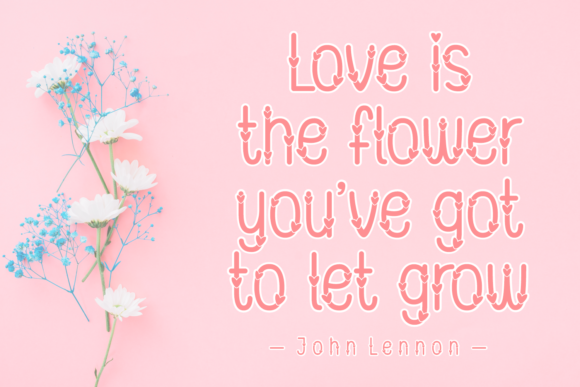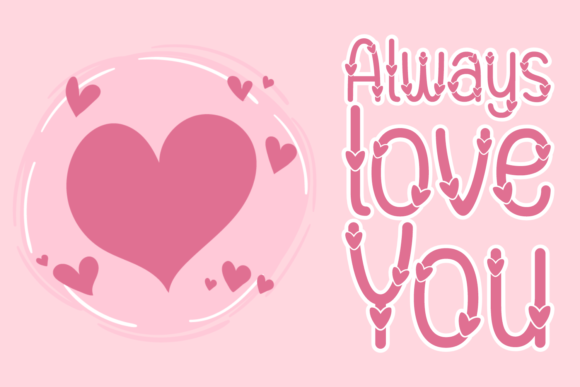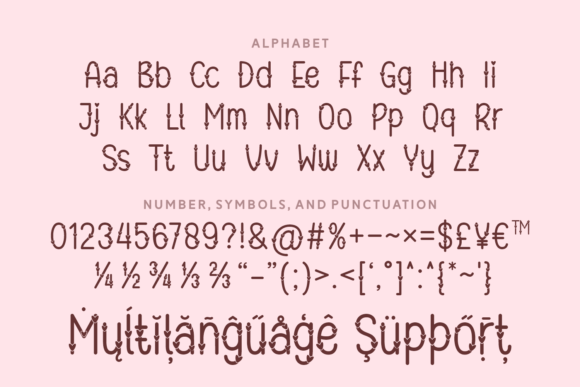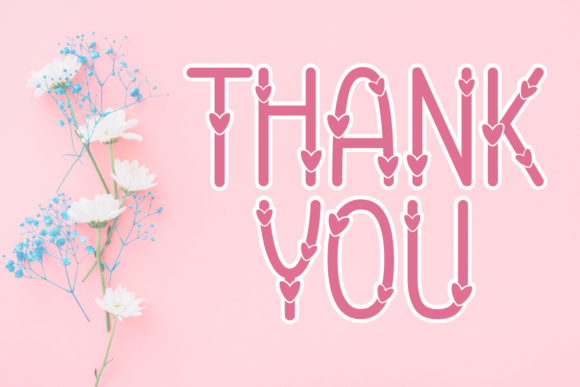
Introduction to Just Love You Font
Have you ever found yourself rummaging through your stash of fonts, searching for the perfect one to convey the emotions behind your creative project? Perhaps you’re designing a romantic card for a loved one or a sweet treat for a special occasion. Whatever the case may be, we’ve all been there – craving a font that’s not just aesthetically pleasing, but also conveys the depth of our feelings.
Enter the Just Love You Font, a high-quality design resource that’s sure to make your creative heart skip a beat. With its lovely decorative elements and hearts on its character set, this font is more than just a cute addition to your design arsenal. It’s a valuable tool for designers looking to add a touch of whimsy and romance to their projects.
Key Features of Just Love You Font
- High-quality design for creative projects, perfect for illustrations, graphics, and more.
- Unique, hand-drawn style with a transparent background, allowing for easy customization and layering.
- Includes a range of characters, including uppercase and lowercase letters, numbers, and special symbols.
- Perfect for use in digital and print media, including social media graphics, posters, and business cards.
Honest Review: Just Love You Font
I recently stumbled upon the Just Love You Font and decided to give it a try for my latest design project. Overall, I’m impressed with the results.
What works well: ✨ The font is a high-quality design resource that can be downloaded for free, which is always a bonus. The transparent background makes it easy to incorporate into various creative projects. I appreciate how versatile the font is, and it adds a nice touch to my design.
Overall, the Just Love You Font is a great addition to any design library, especially for personal projects. While it has its limitations, I think it’s a solid choice for designers looking for a high-quality, free design resource.
- Great for personal projects
How to Use Just Love You Font
Tips for Getting the Most Out of Just Love You Font
Experiment with different font sizes and styles to create visual interest. Combine the Just Love You Font with other design elements to add depth and texture to your design. Use the transparent background option to create a cohesive look and feel.
Common Use Cases for Just Love You Font
Use the Just Love You Font for wedding invitations, birthday cards, and other special occasion designs. This font is also perfect for creating social media graphics, blog posts, and marketing materials. With its high-quality design and transparent background option, the Just Love You Font is a valuable resource for any creative project.